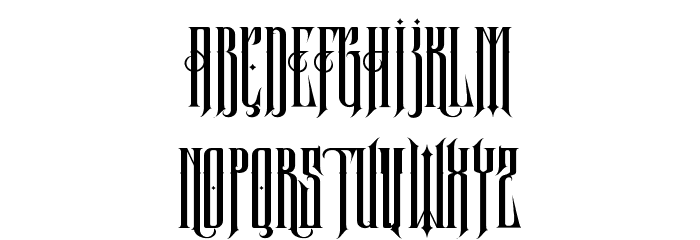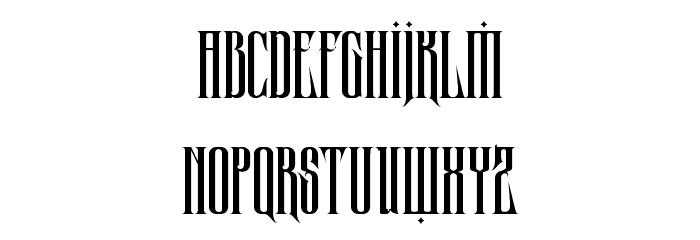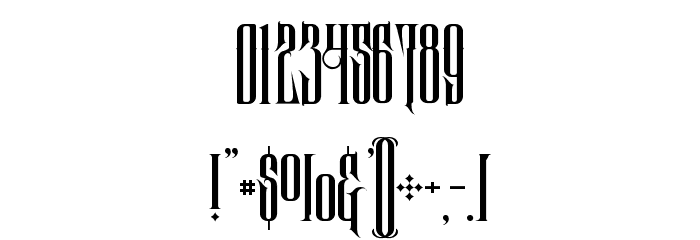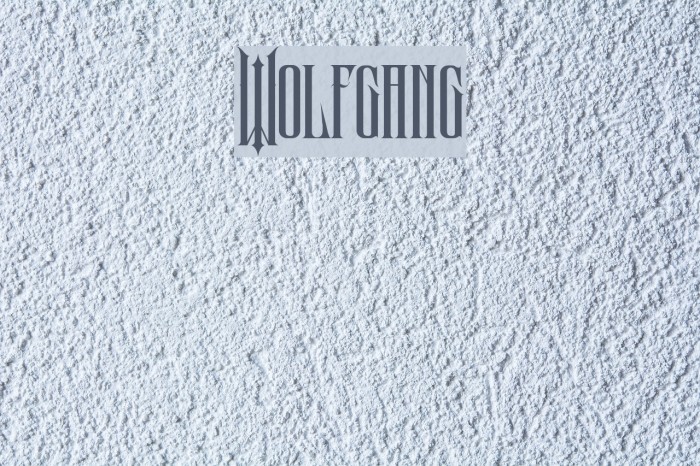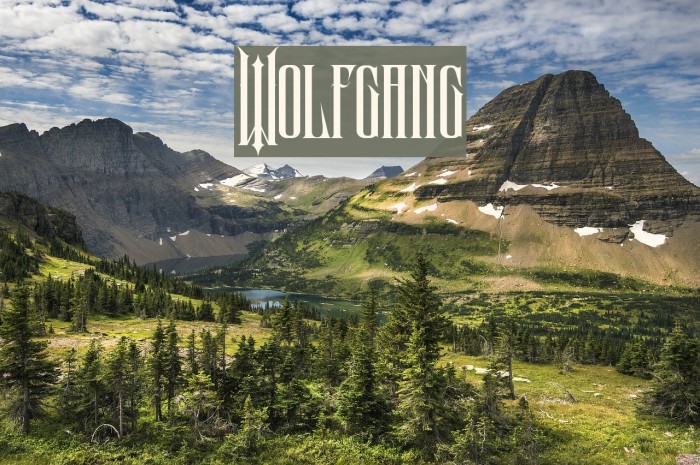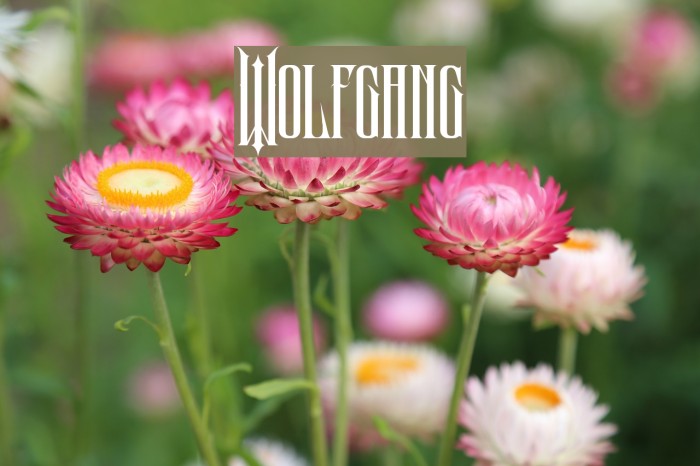
Wolfgang Font
This font exhibits a striking and elaborate design, characterized by its intricate and ornate details reminiscent of traditional Blackletter styles. The characters are tall and narrow, with sharp, pointed serifs and decorative flourishes that add a sense of elegance and sophistication. The uppercase and lowercase letters maintain a consistent style, enhancing the overall cohesiveness of the font. The numbers and special characters are equally detailed, ensuring uniformity across all elements. This font's unique style makes it ideal for projects that require a historical or gothic aesthetic.
An ornate Blackletter-style font with intricate details and sharp serifs.
- Proposed Projects: Ideal for historical documents, gothic-themed designs, book covers, and decorative posters.
- Category: Blackletter
- Character Spacing: Tight
- Overall Style: Vintage
- Use Case: Logos, Headlines, Decorative text